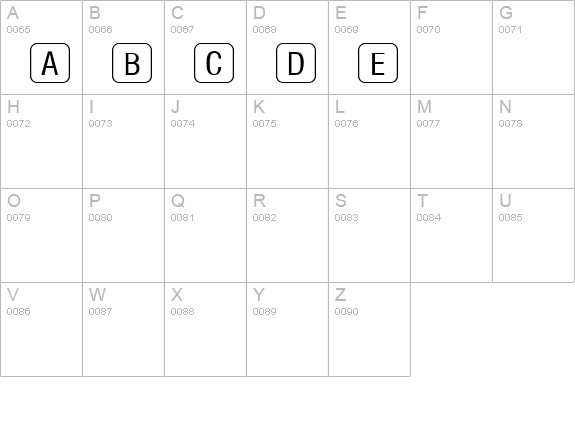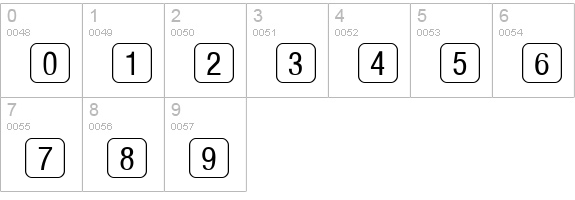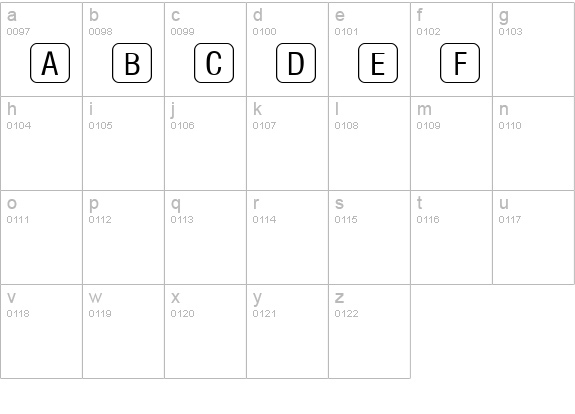
RRKeyLetters Normal is the standard, neutral variant in the RRKeyLetters typeface family \xE2\x80\x94 well suited to general body text, paragraphs, and standard typographic work.
RRKeyLetters Normal font is a modern and sleek typeface that exudes sophistication and professionalism. With its clean lines and rounded edges, this font is perfect for a wide range of design projects, from branding to editorial layouts. The RRKeyLetters Normal font offers a balance of elegance and readability, making it a versatile choice for both print and digital applications. Best of all, RRKeyLetters Normal font is available for free download at FontsMarket.com. This means you can easily access this high-quality font without any cost, making it a valuable addition to your font library. Whether you're a designer, artist, or content creator, RRKeyLetters Normal font is sure to elevate your projects with its timeless appeal and contemporary style. Download it today and see the difference it can make in your designs!